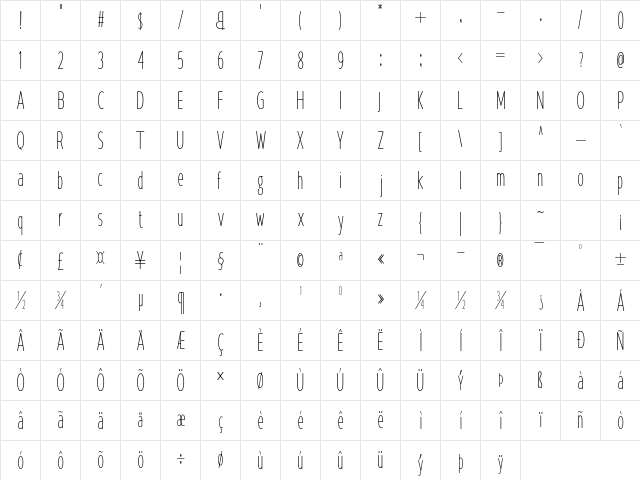
Krempeng Sans Regular
Design Context for Krempeng Sans Typeface
Krempeng Sans is a composed and adaptable typeface that performs quietly and consistently across a wide range of design contexts.